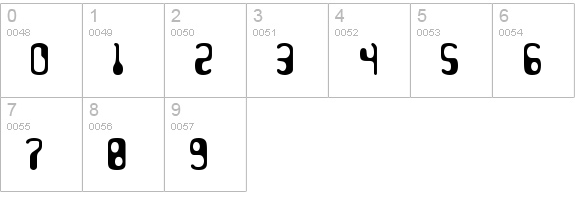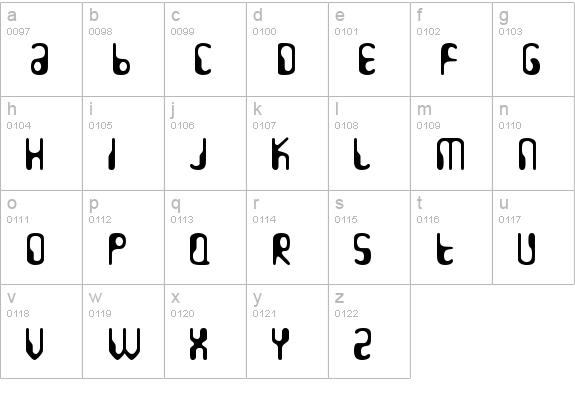
Introducing HydrogenWhiskey, a captivating and versatile font that exudes a sense of modernity and sophistication. With its sleek lines and unique curves, HydrogenWhiskey is perfect for adding a touch of elegance to any design project. Whether you're working on a branding campaign, website design, or print materials, this font will make a statement and leave a lasting impression. What sets HydrogenWhiskey apart is not just its aesthetic appeal, but also the fact that it is available for free download at FontsMarket.com. This means you can easily access this high-quality font without any cost, making it a valuable addition to your font collection. Embrace the creativity and flexibility that HydrogenWhiskey offers, and elevate your designs to new heights with this exceptional typeface.